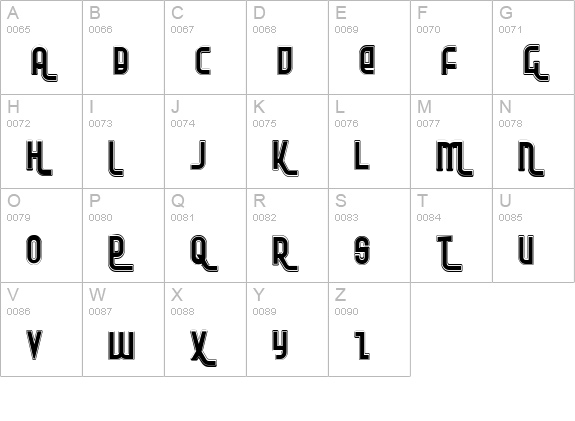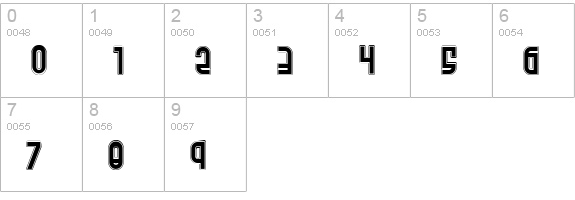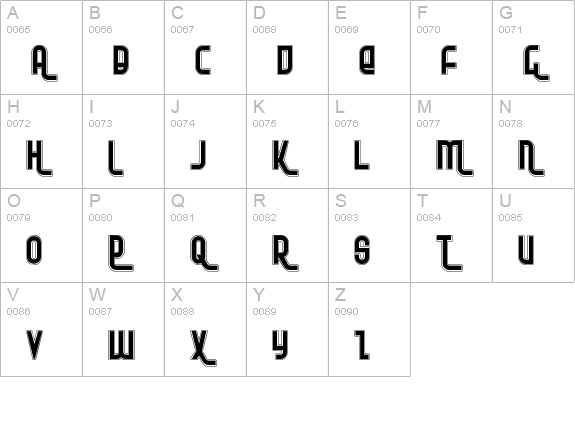
Ro'Ki'Kier Pro is a stunning and versatile font that exudes sophistication and elegance. With its unique blend of sharp edges and smooth curves, this font is perfect for creating impactful designs that demand attention. Whether you're working on a branding project, designing a website, or creating eye-catching graphics, Ro'Ki'Kier Pro will elevate your work to the next level. This premium font is thoughtfully crafted with meticulous attention to detail, ensuring that every character is beautifully designed and balanced. The extensive character set includes uppercase and lowercase letters, numbers, punctuation, and special characters, giving you all the tools you need to bring your creative vision to life. And the best part? Ro'Ki'Kier Pro is available for free download at FontsMarket.com. Now you can access this high-quality font without breaking the bank, making it the perfect choice for designers, creatives, and anyone looking to add a touch of sophistication to their projects. Download Ro'Ki'Kier Pro today and take your designs to new heights.